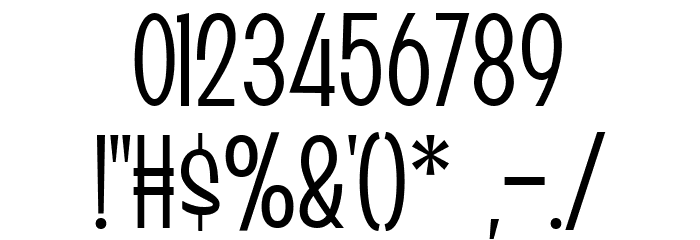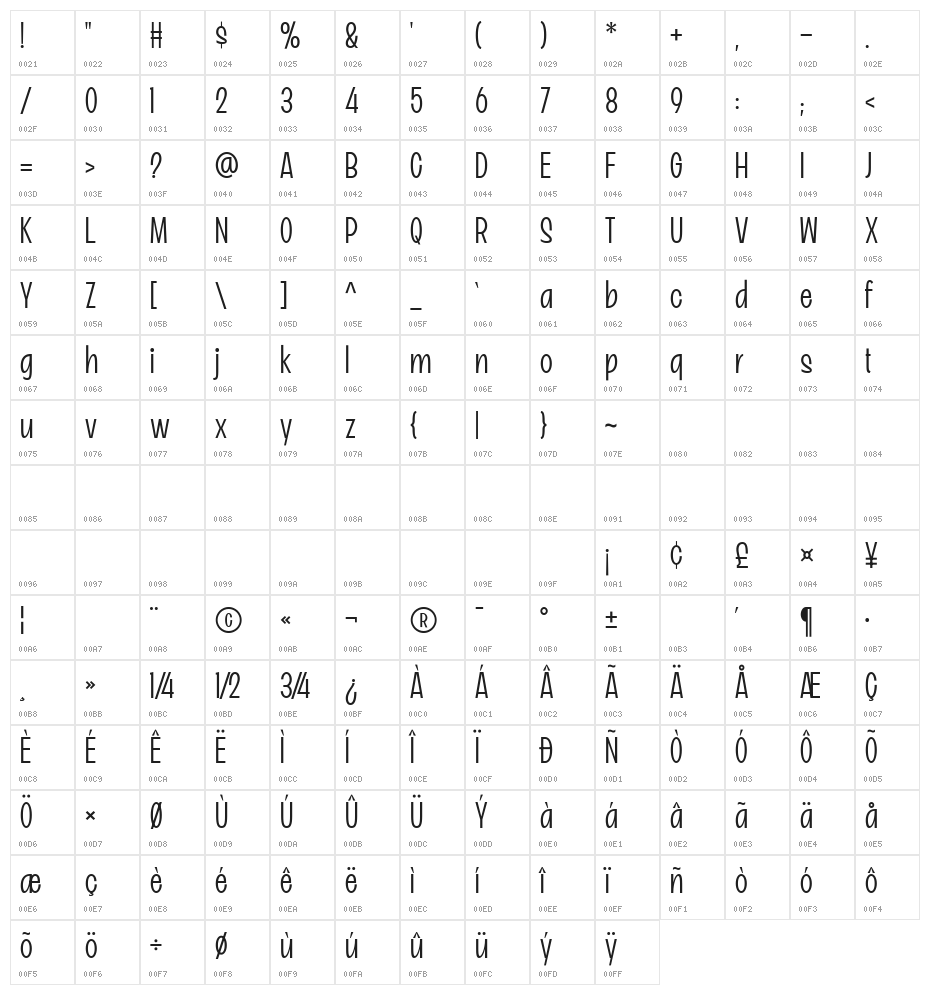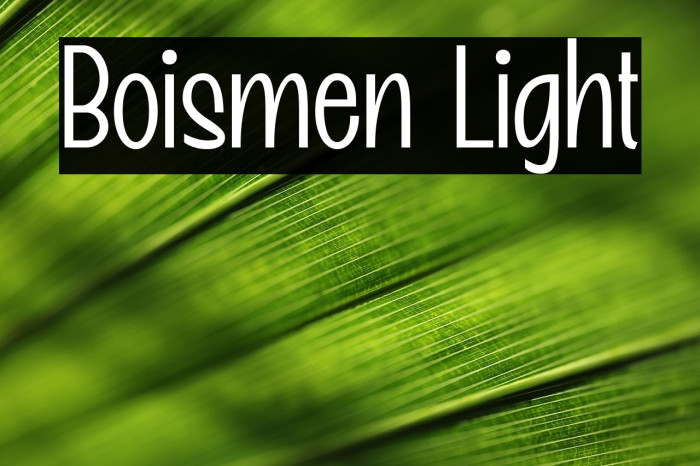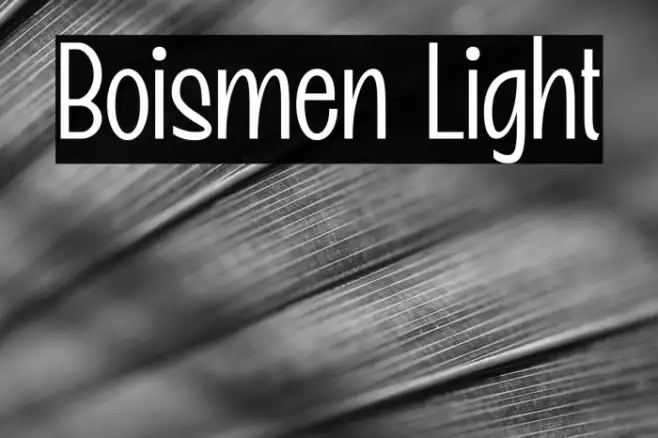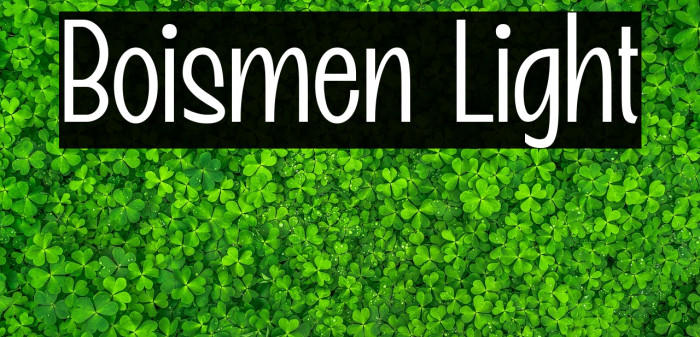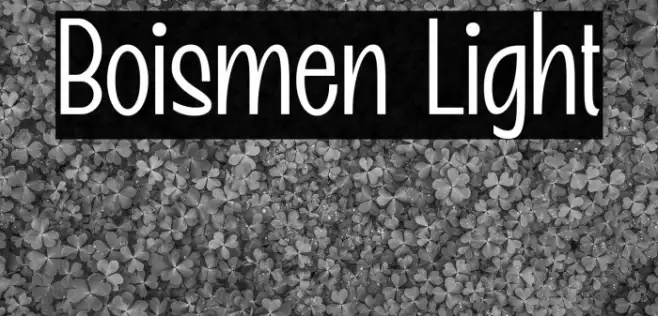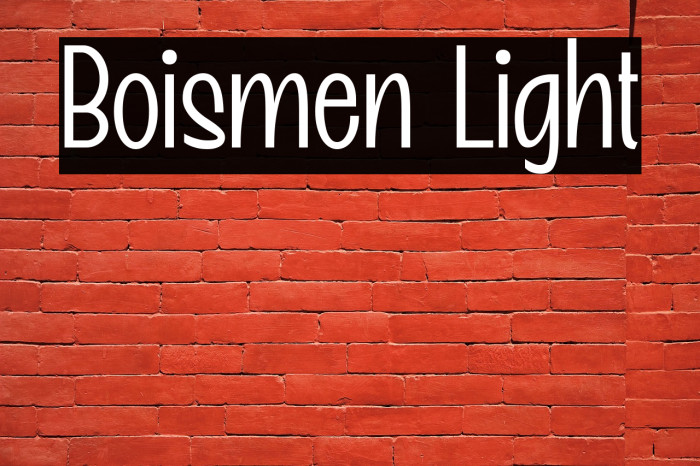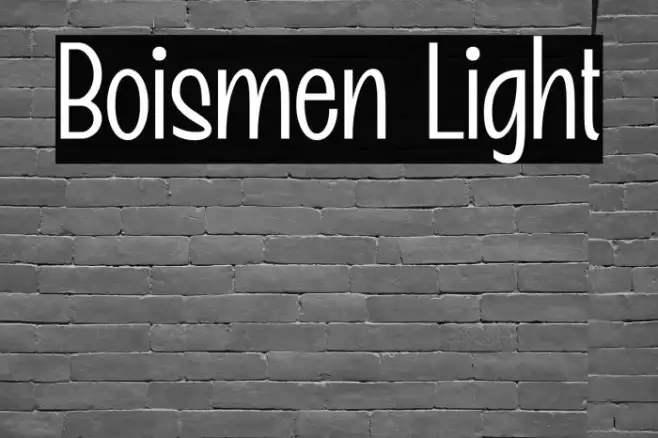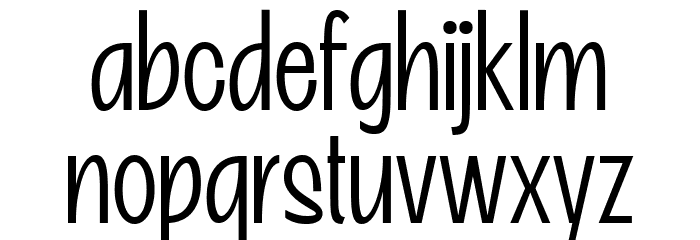
Boismen Light Font
Boismen Light Description
This font features a clean and modern sans-serif style with a light weight, offering a sleek and contemporary appearance. The characters are tall and narrow, providing a condensed look that maximizes space efficiency. The uniform stroke width ensures a harmonious and balanced aesthetic, making it suitable for a variety of design applications. The font includes a full set of uppercase and lowercase letters, numbers, and a range of special characters, ensuring versatility in use. Its minimalistic design is ideal for projects that require a modern and professional touch.
| Proposed Projects | Ideal for branding, editorial design, web design, and advertising where a modern and clean look is desired. |